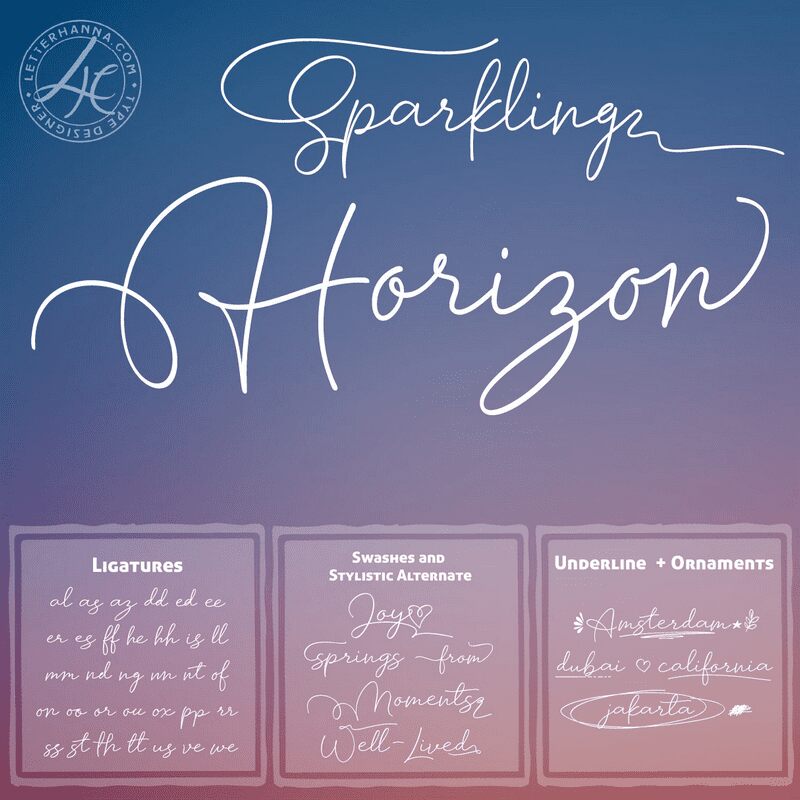
Sparkling Horizon, designed by Rinaldo Hasibuan, is a delightful and feminine extra-light font with a casual handwritten style. Its graceful curves and playful strokes make it perfect for projects that seek to evoke a sense of elegance and whimsy.
Whether used in wedding invitations, fashion magazines, or branding for beauty products, Sparkling Horizon adds a touch of charm and sophistication. Its delicate nature invites readers to immerse themselves in its captivating aura.
Let this font bring your design to life with its enchanting presence.
Introducing "Sparkling Horizon" a mesmerizing handwritten font that captures the essence of boundless creativity and shimmering elegance. With every stroke, this font evokes the sensation of glistening sunlight on the horizon, infusing your designs with a touch of radiant charm. Whether used for invitations, logos, or creative projects, "Sparkling Horizon" brings a sense of enchantment to your words. Let your imagination take flight as you create with this font, where each character sparkles like a unique star on the canvas of your design journey.